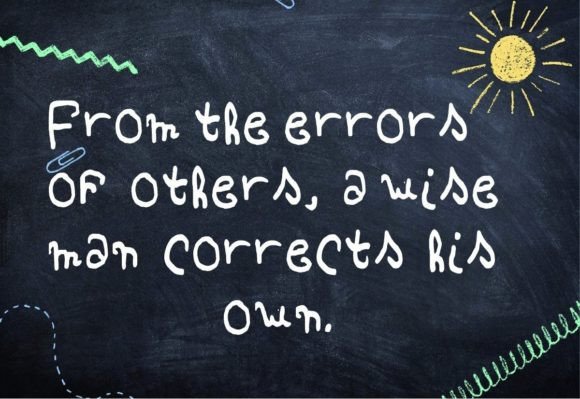
Introduction to Child Writing Font
Child Writing is a fun and friendly handwritten font.
This font is charming and simple and can add a youthful vibe to your childrenโs oriented designs .
Key Features of Child Writing Font
Why Choose Child Writing Font?
Child Writing Font offers exceptional quality and versatility, making it a valuable addition to your design toolkit. Whether you’re creating for personal projects or commercial use, Child Writing Font delivers professional results.